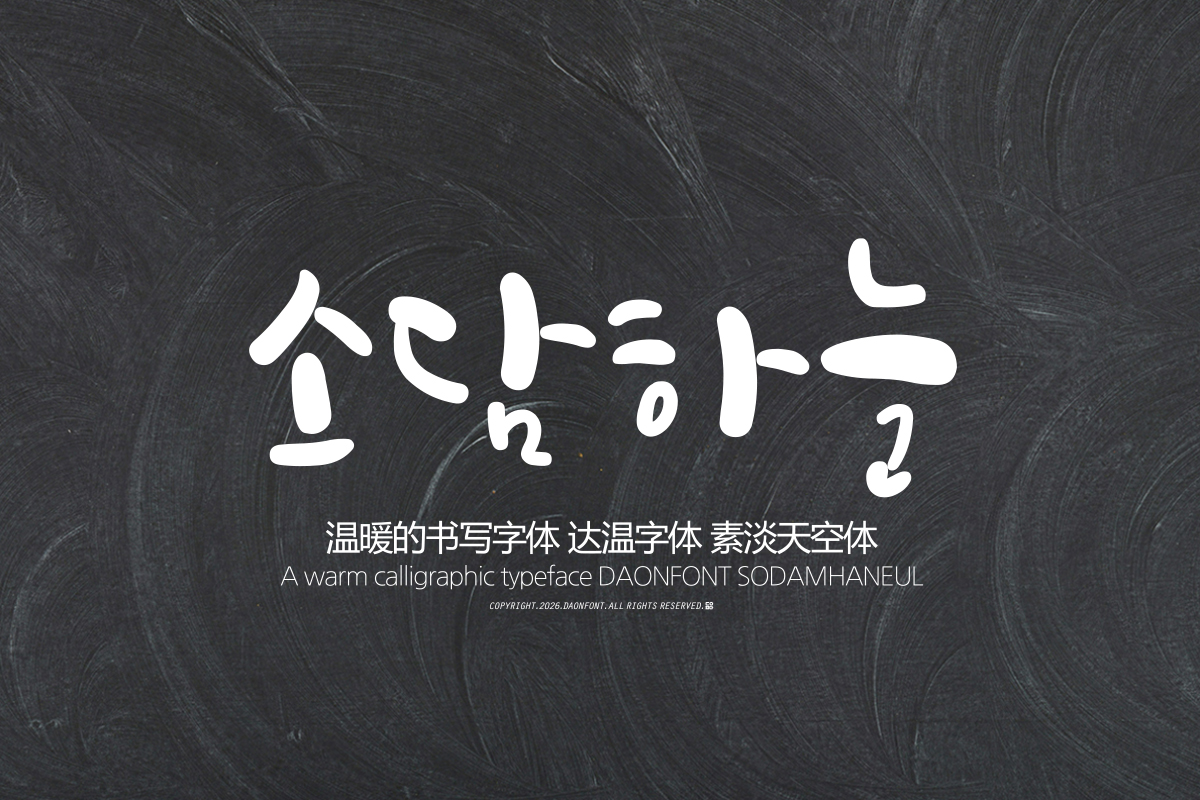
DAON SODAMHANEUL(B)
DaonFont 'SODAMHANEUL' is a typeface designed to naturally express the free flow of characters and warm sensibility inherent in calligraphy, even in a digital environment. The lively rhythm felt in each stroke and the appropriate spacing create rhythm in the letters, allowing them to be utilized as a calligraphic element that captures emotions, going beyond simply conveying content.